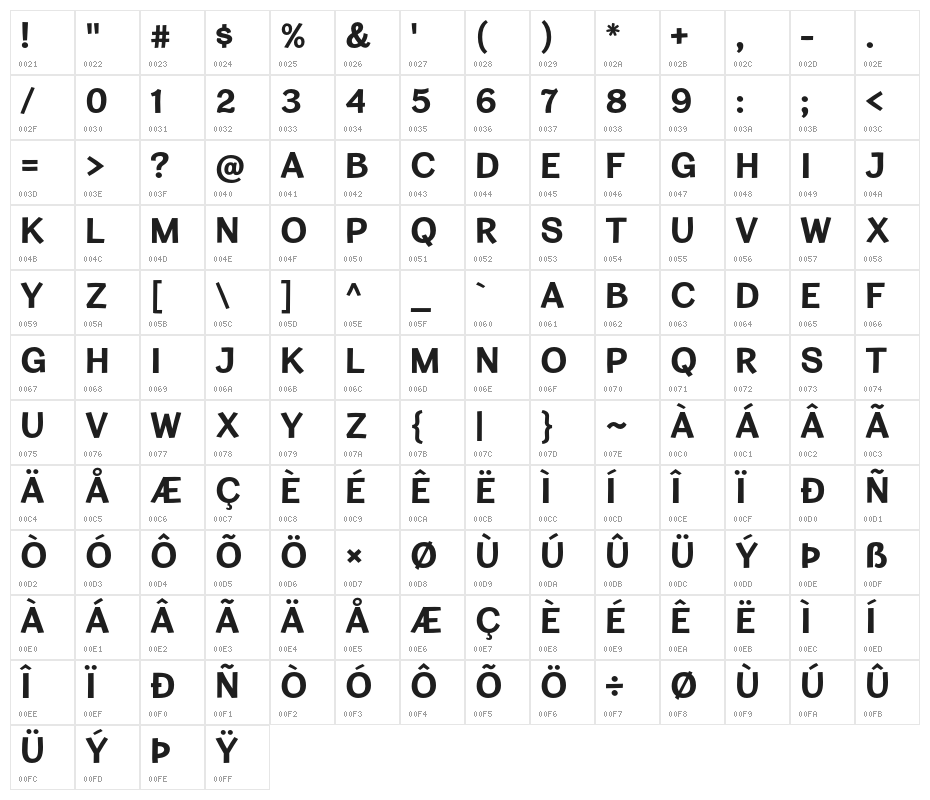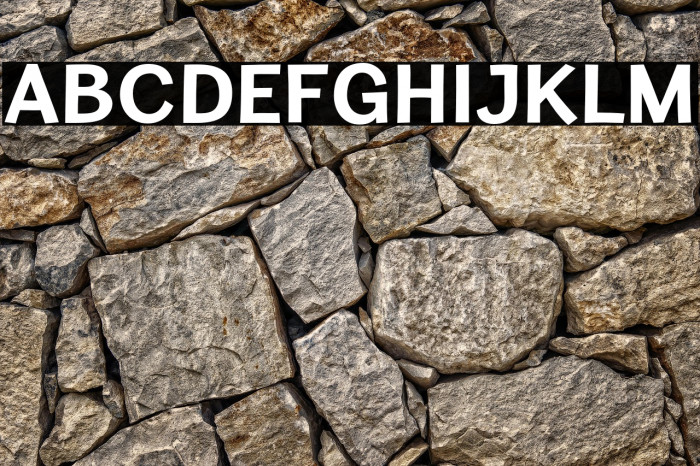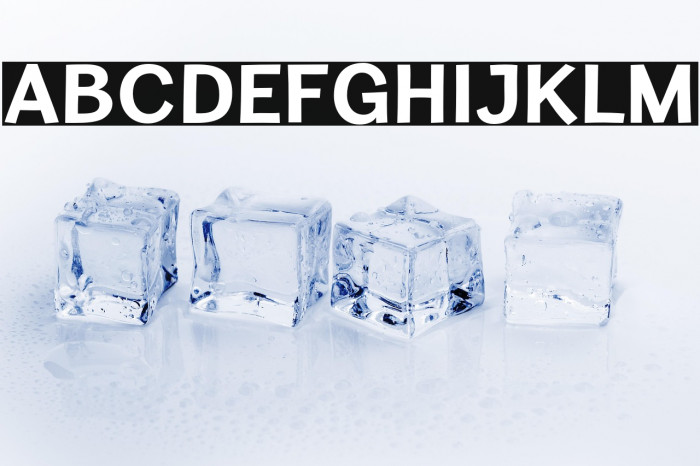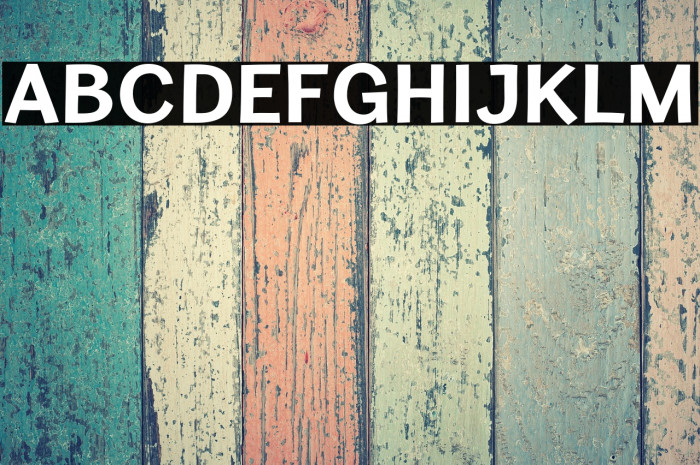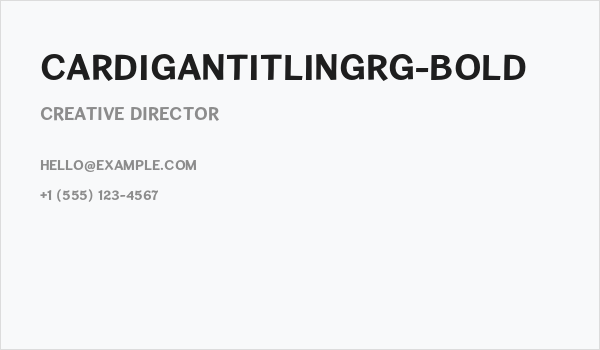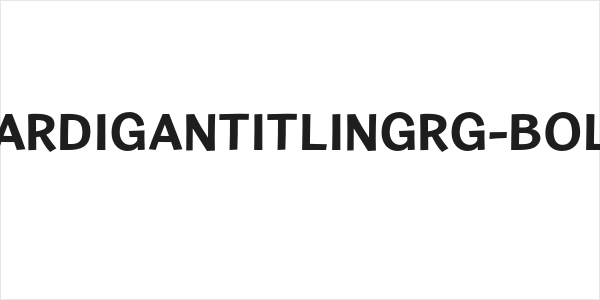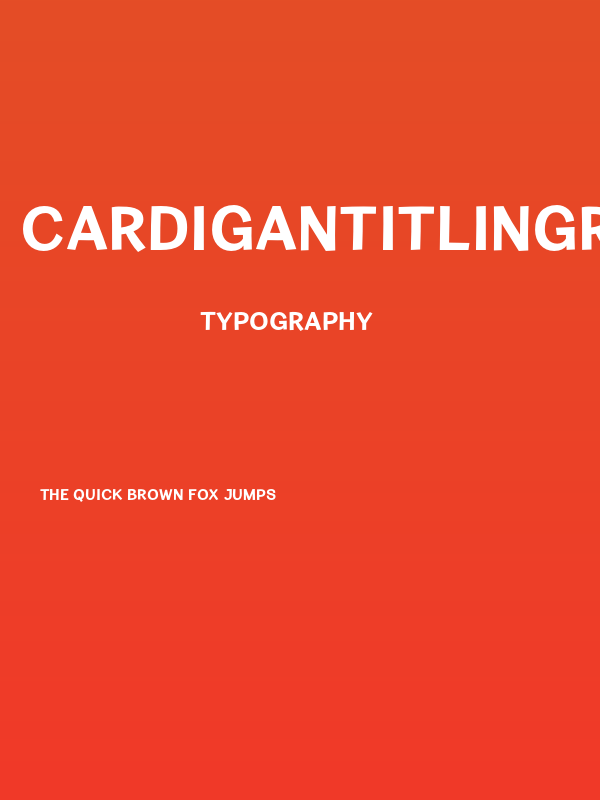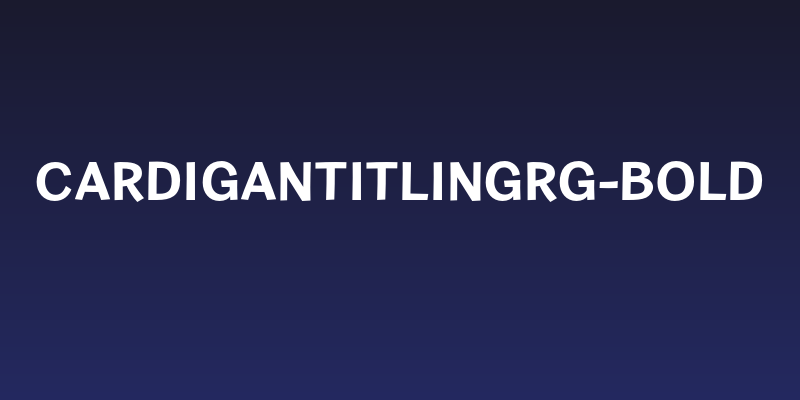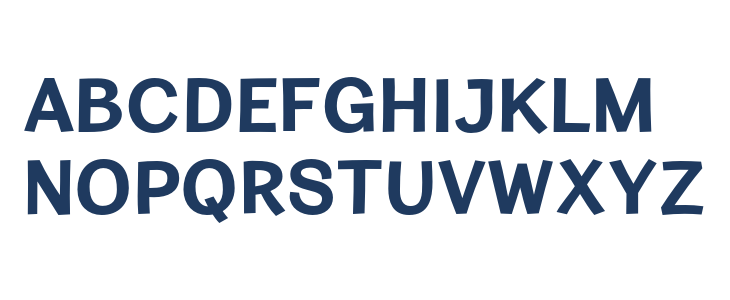
CardiganTitlingRg-Bold Font
CardiganTitlingRg-Bold Description
This font features bold, clean lines with a modern and assertive appearance. The characters are well-defined with a consistent stroke width, giving it a strong and impactful presence. The uppercase letters are slightly condensed, enhancing their boldness, while the lowercase letters maintain a uniform height, ensuring readability. The numerals are proportionate and align well with the overall style of the font. Special characters are distinct and complement the alphanumeric characters, making this font versatile for various uses.
| Proposed Projects | Ideal for branding, headlines, posters, and any project requiring a bold statement. |